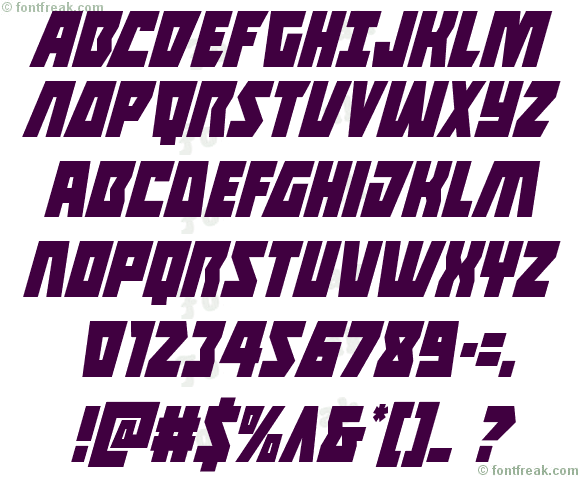
Halfshell Hero Italic
About Halfshell Hero Italic
Halfshell Hero Italic, designed by Daniel Zadorozny, is a striking display font that falls under the category of decorative typefaces. Released in 2013, this font captures attention with its bold, italicized strokes that convey a sense of movement and dynamism. The stroke weight is consistent, creating a solid presence, while the slight contrast in thickness adds visual interest. The spacing is generous, allowing each letter to breathe, which enhances legibility even at larger sizes. Decorative elements include unique angular cuts and sharp edges that give the typeface an energetic and modern feel.
This font is particularly well-suited for a variety of creative applications. It can make a memorable impact on movie posters, where the dramatic style draws viewers in. Additionally, it works wonderfully for branding purposes, making it ideal for small business owners looking to create a standout logo or signage. Restaurant menus can benefit from its playful yet professional appearance, while event flyers, especially for casual or fun occasions, will gain an extra layer of excitement with Halfshell Hero Italic.
Target audiences for this font include graphic designers seeking unique type choices, content creators looking to elevate their visual storytelling, and marketing professionals aiming to catch the eye of potential customers. The Halfshell Hero Italic font free download offers accessibility, allowing users to incorporate this eye-catching typeface into their projects without financial constraints.
What sets Halfshell Hero Italic apart is its ability to blend boldness with a playful spirit, making it an excellent choice for anyone who wishes to convey creativity and energy in their designs. Whether you’re crafting promotional materials or enhancing digital content, this font promises to leave a lasting impression.